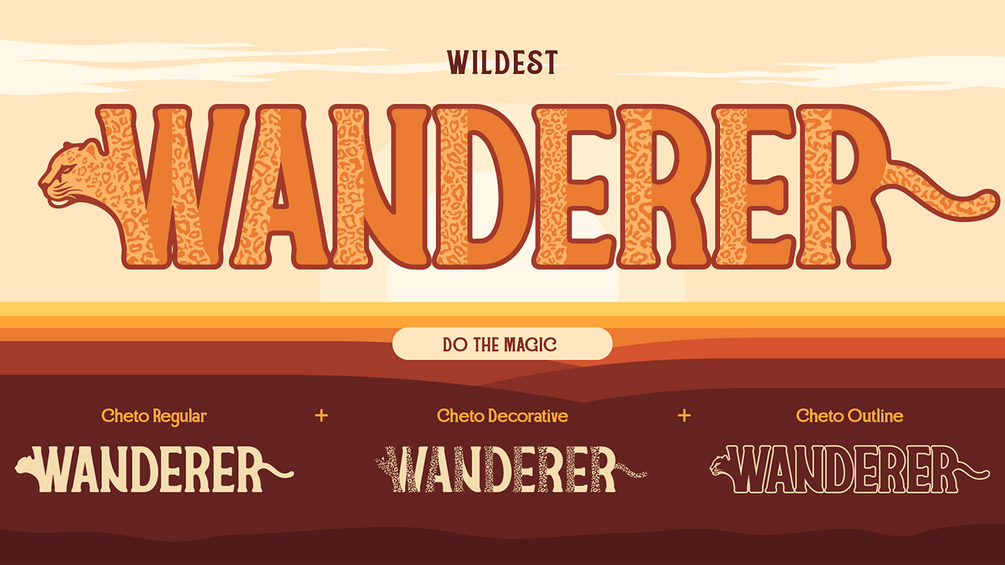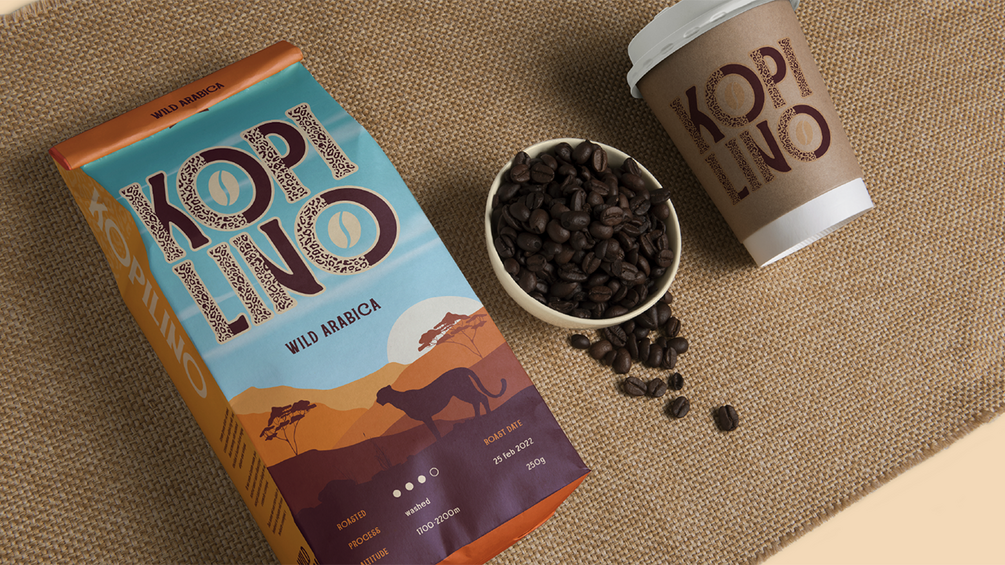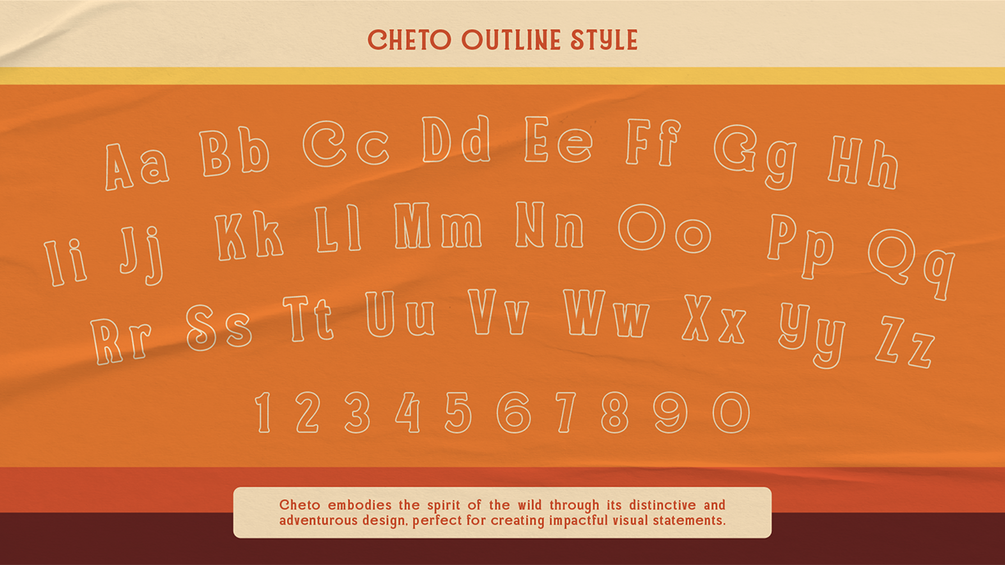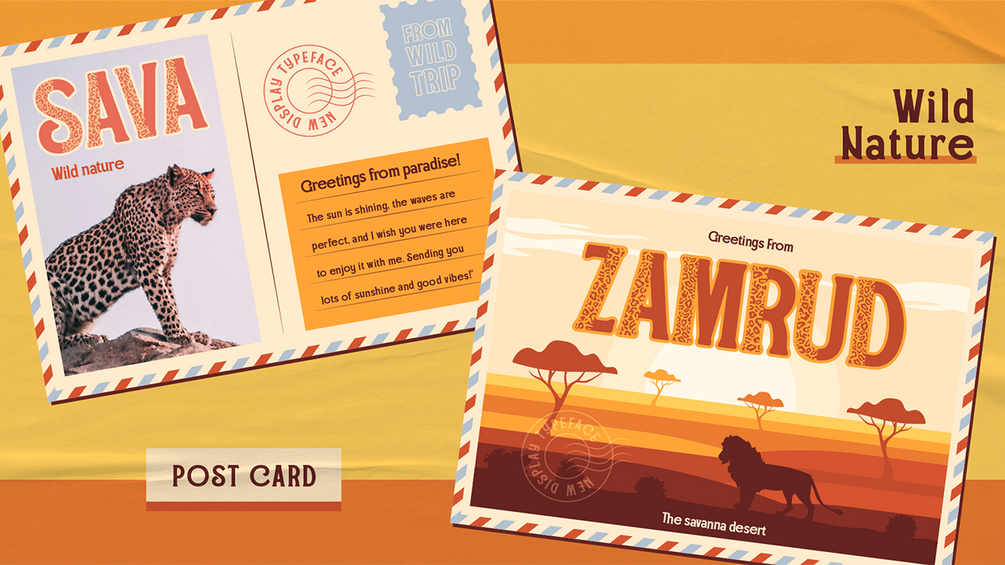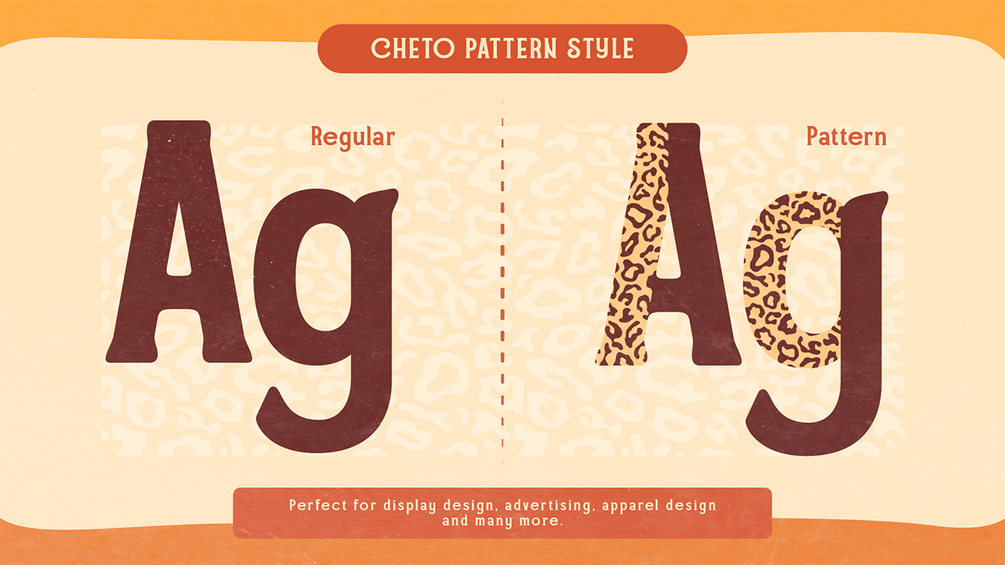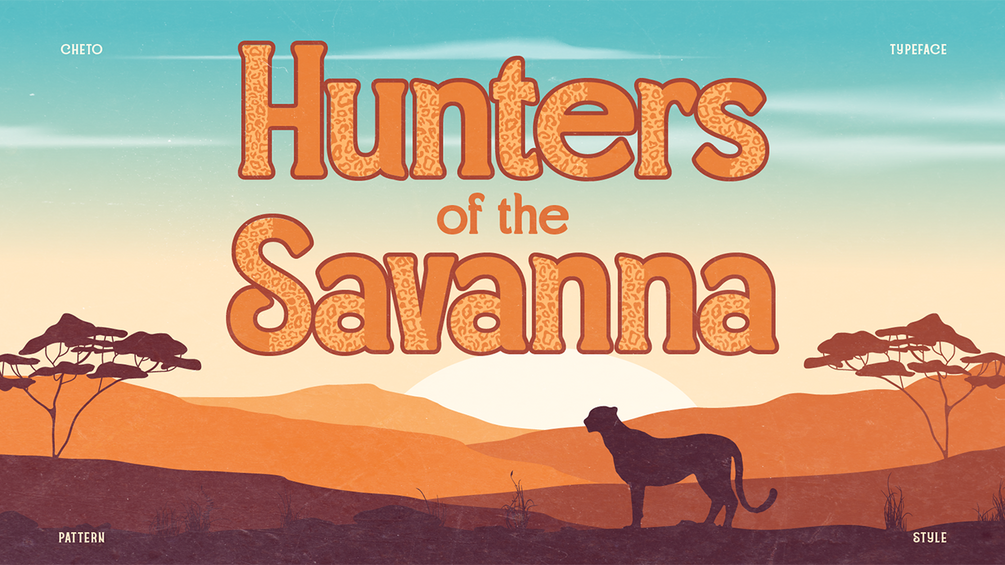
Cheto
Let's roar with Cheto, a font with pattern and anatomies of cheetah in every letter. Cheto embodies the spirit of the wild through its distinctive and adventurous design perfect for creating impactful visual statement. Cheto has two unique alternate styles with heads and tails of cheetah. You also can combine regular, outline and pattern style. Where each letter reflected a cheetah. This font is very suitable for all design projects with a cheetah theme.